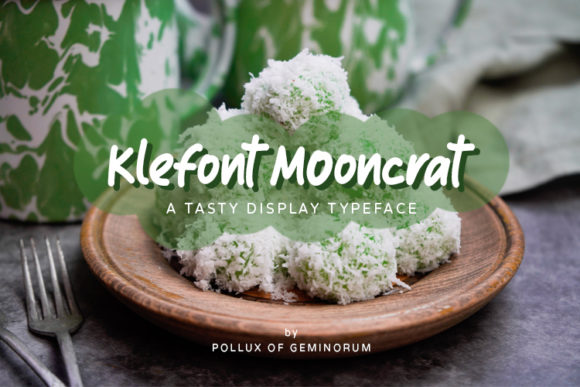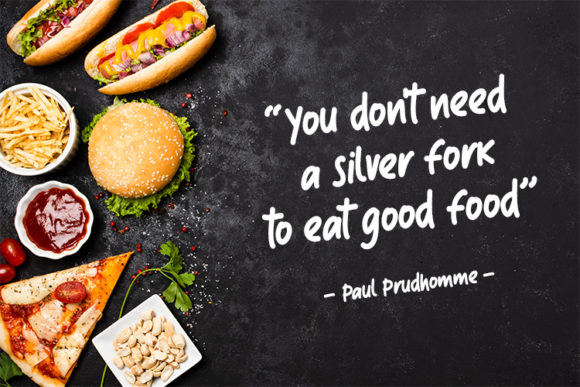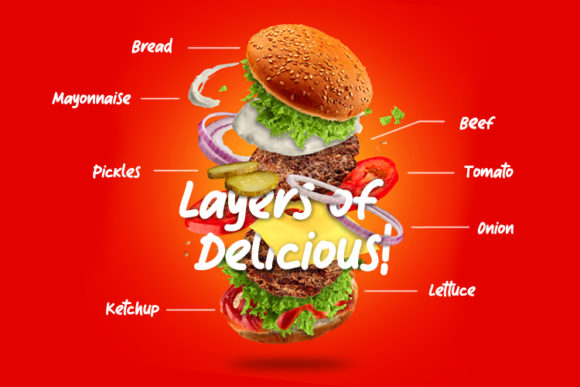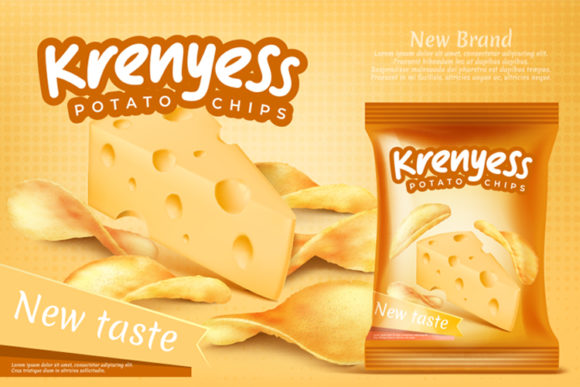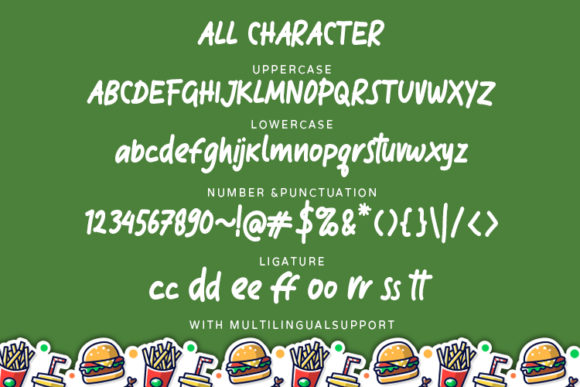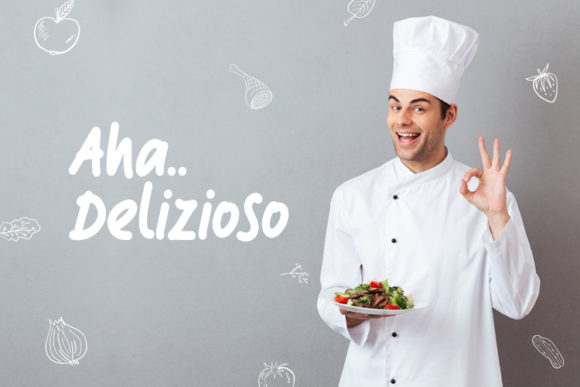
Klefont Mooncrat Font
About Klefont Mooncrat Font
Klefont Mooncrat is a sweet and simple handwritten font. Fall in love with its incredibly versatile style and use it to create gorgeous invitations, beautiful stationary art, eye-catching social media posts, and much more!